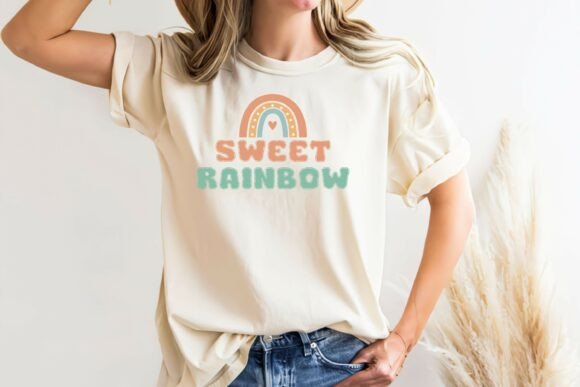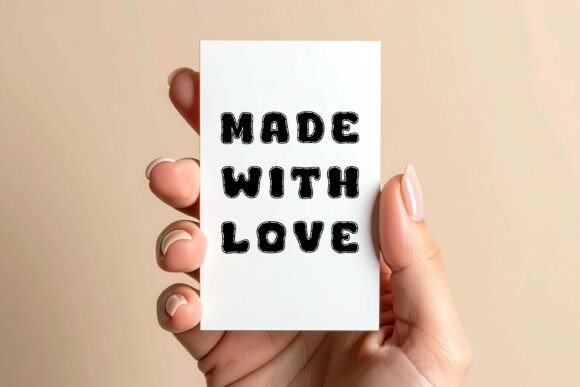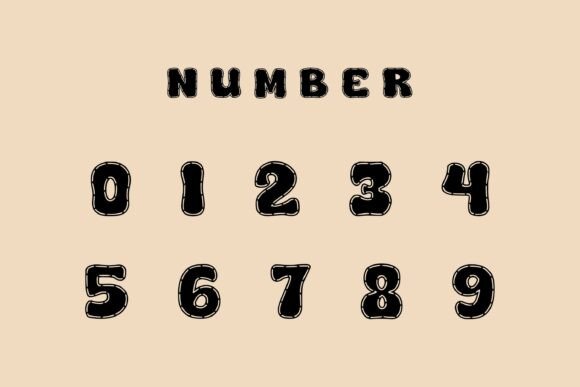
Introduction to Road Holiday Font
Do you remember the excitement of creating with crayons and markers as a child, bringing your imagination to life on paper? That same sense of wonder and creativity can be infused into your design projects with the charming Road Holiday Font. This delightful typeface is a treasure trove of fun and whimsy, designed to captivate a young audience and transport them to a world of imagination.
As a designer, you’re always on the lookout for the perfect font to elevate your creative project. With its bold, rounded letterforms and hand-stitched texture, the Road Holiday Font is an instant winner for any design resource. Its clear legibility and robust shape make it ideal for headlines and titles, while its transparent background allows for seamless integration into any design.
Key Features of Road Holiday Font
- High-quality design resource perfect for creative projects, offering a unique and stylish look.
- Includes a range of glyphs and characters, suitable for use in various languages and creative projects.
- Perfect for designers and artists looking for a unique and eye-catching font to elevate their creative project.
Honest Review: Road Holiday Font
As a designer, I’m always on the lookout for high-quality fonts to elevate my creative projects. Recently, I stumbled upon the Road Holiday Font and decided to give it a try.
- ✨ The font has a unique and modern design that’s perfect for travel or adventure-themed projects.
- ⚠️ The font doesn’t come with a complete character set, which can be a issue for projects that require specific characters.
- ⚠️ The font is not suitable for small text sizes, as it can become difficult to read.
Overall, I’m impressed with the Road Holiday Font and would recommend it for creative projects that require a modern and unique design. While it has some limitations, its high quality and free download option make it a valuable design resource.
The Road Holiday Font is commonly used in a variety of design projects, including brochures, flyers, and social media graphics. It’s a great choice for anyone looking for a high-quality, free font that can add a touch of elegance to their design.